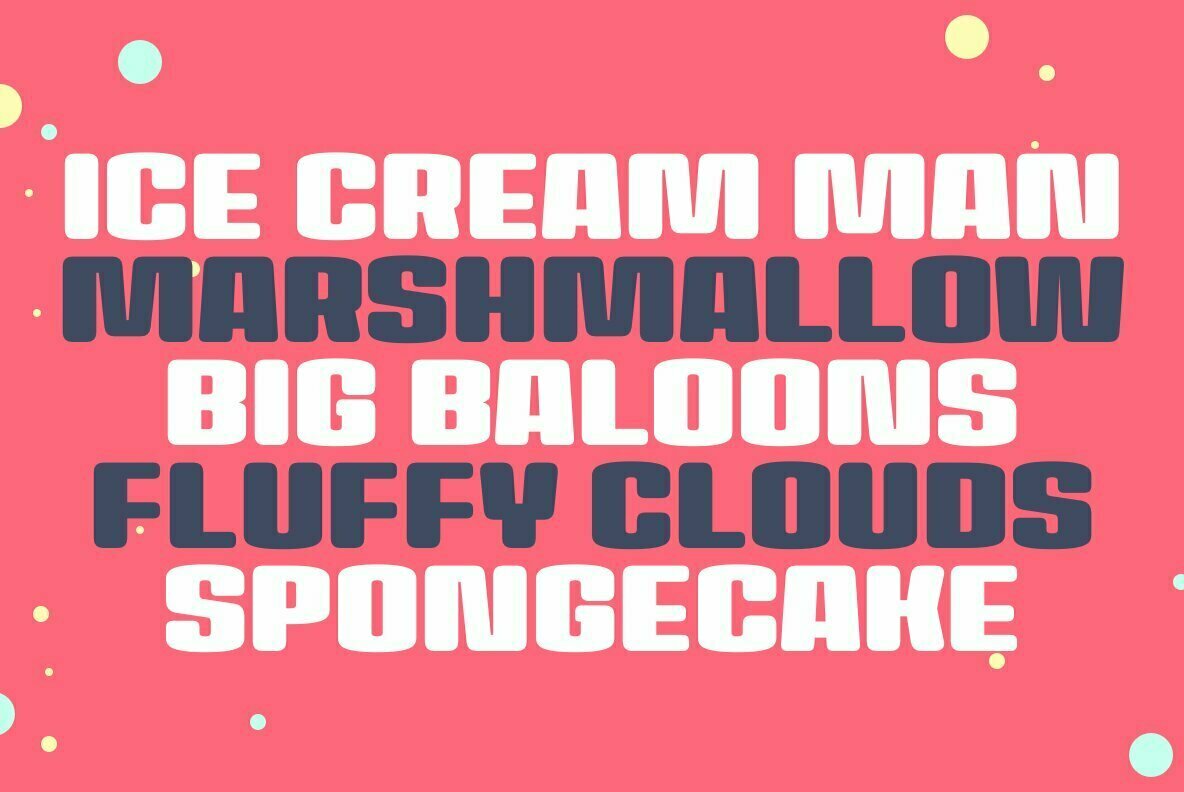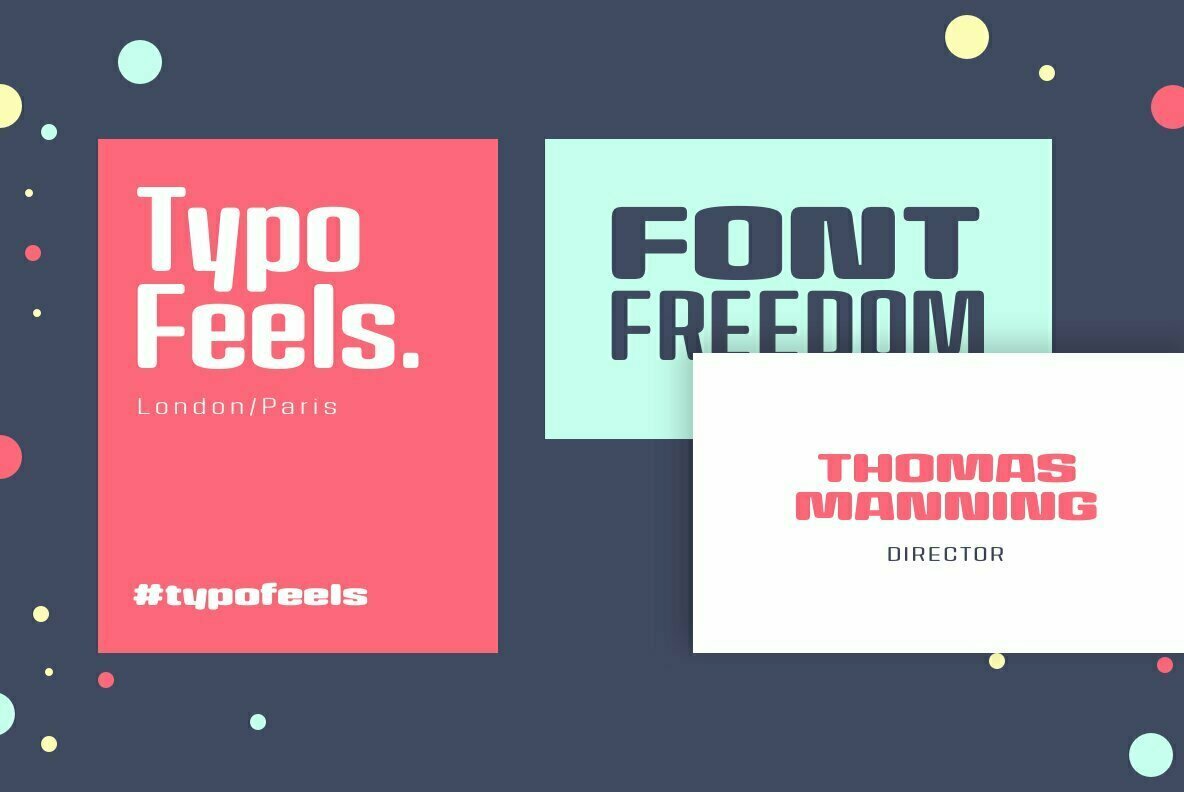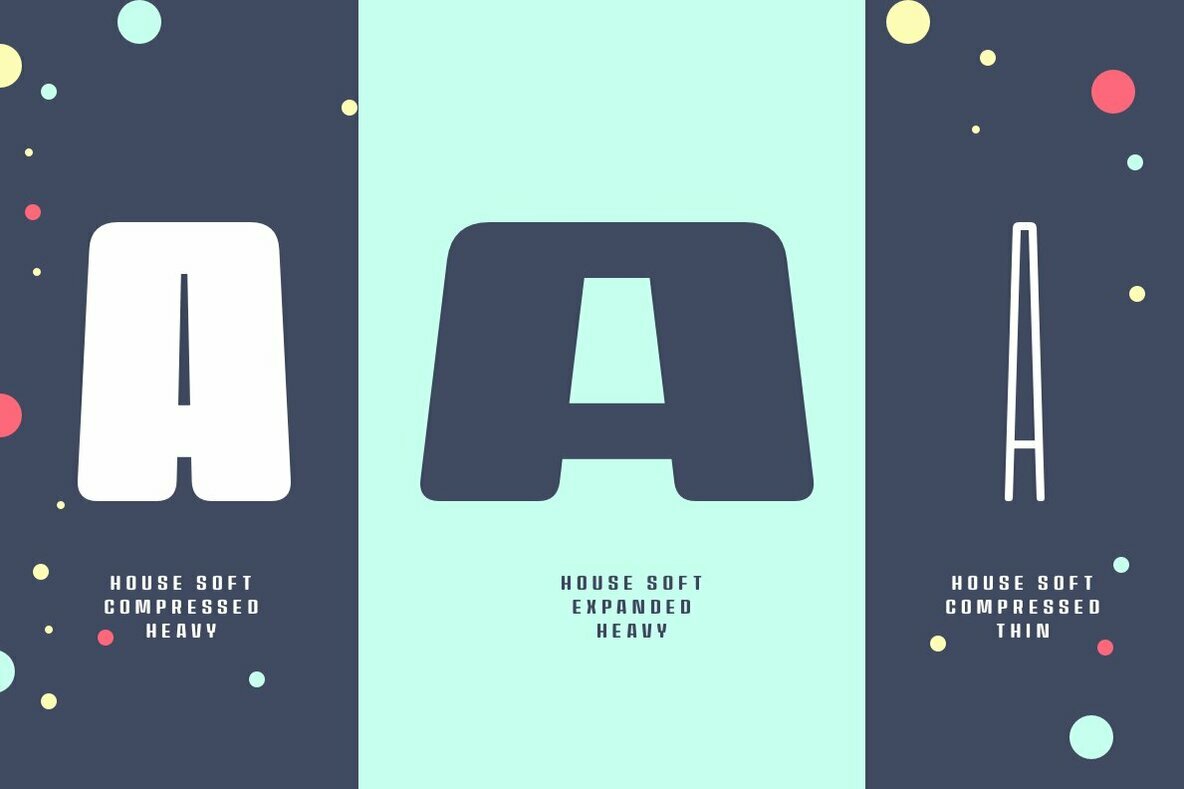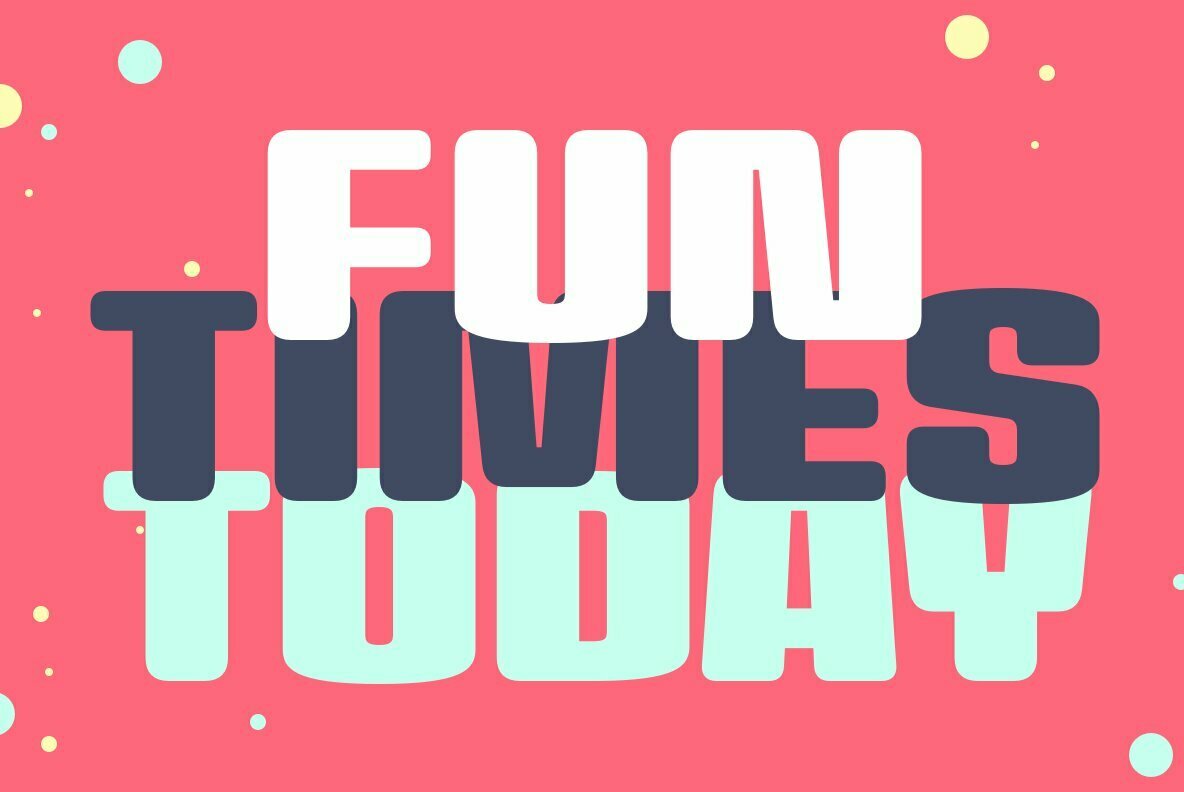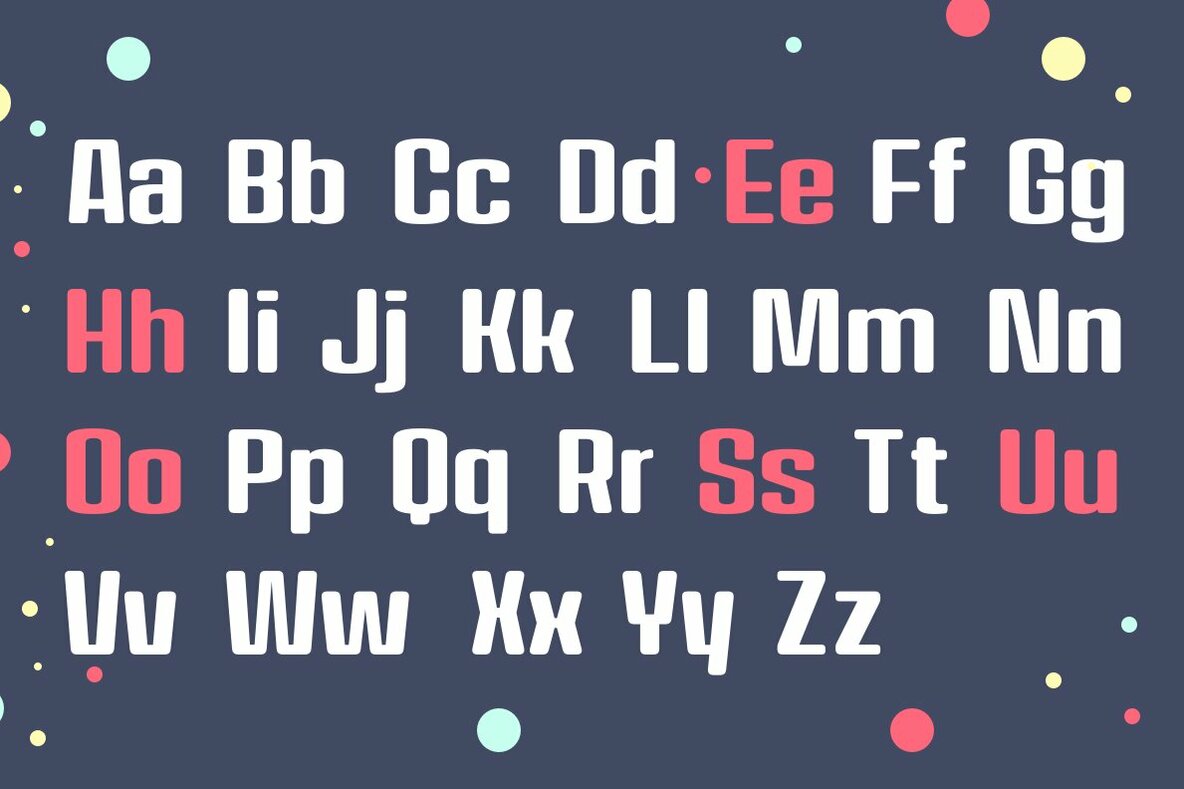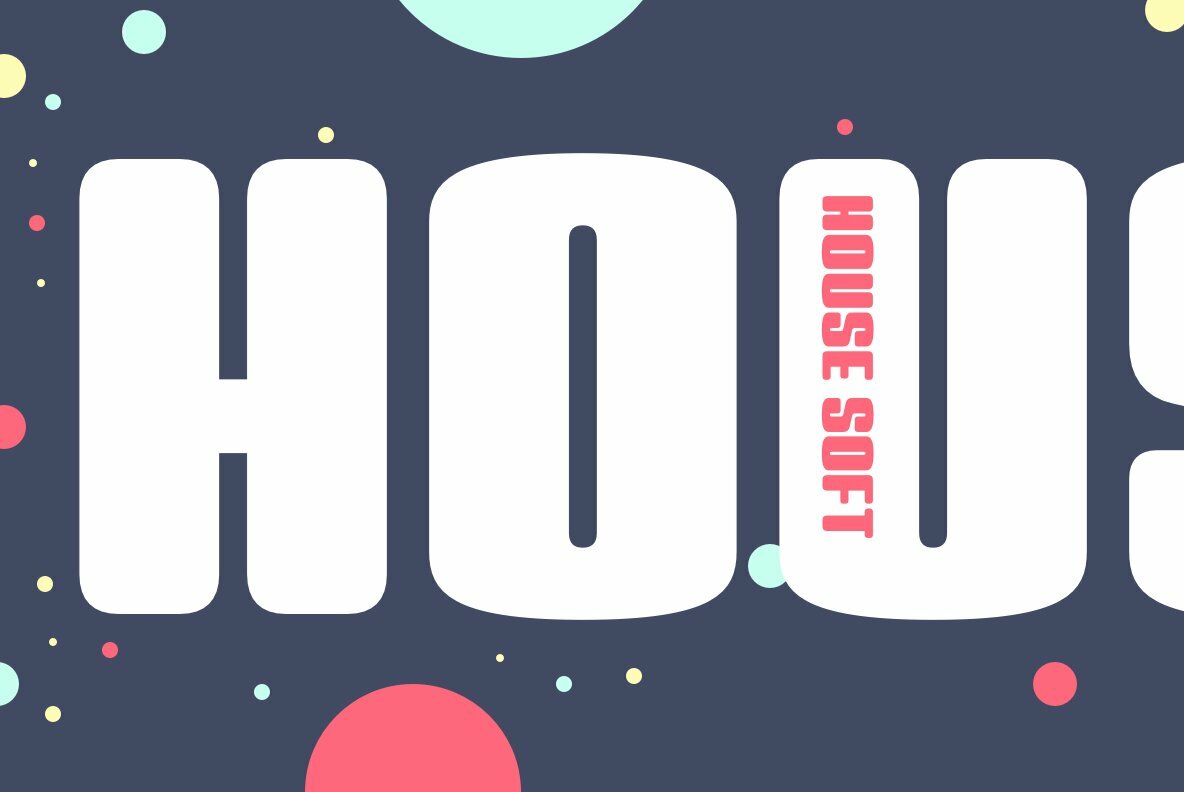
House Soft Font
House Soft is the curvy, fun little brother of House Sans. Its exaggerated rounded corners give it a playful feel that will bring happiness and joy wherever it’s used. Like its big brother, House Soft is also made up of 100 weights in 5 useful widths (Compressed to extended) that make it a versatile font. From big bold headlines to playful brands House Soft offers the flexibility and uniqueness you and your project deserve.